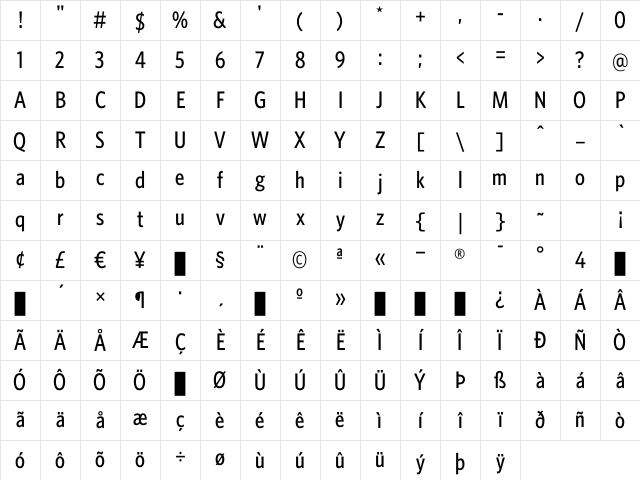
WhitneyCondensed Medium Free Font
Design Context for WhitneyCondensed
WhitneyCondensed is a composed and adaptable typeface that performs quietly and consistently across a wide range of design contexts. Its narrow stance lets it pack a punch even in space-constrained designs.
Pro Tip: Use WhitneyCondensed in both headline and body roles to test its range before committing to a single application.